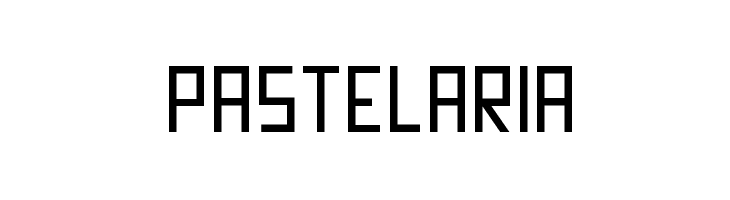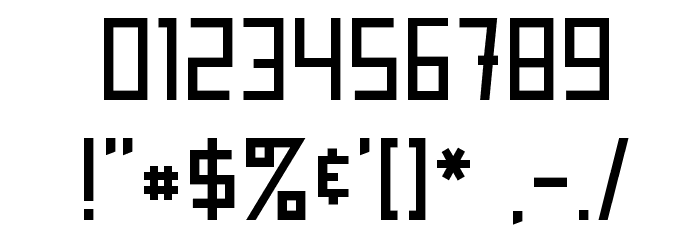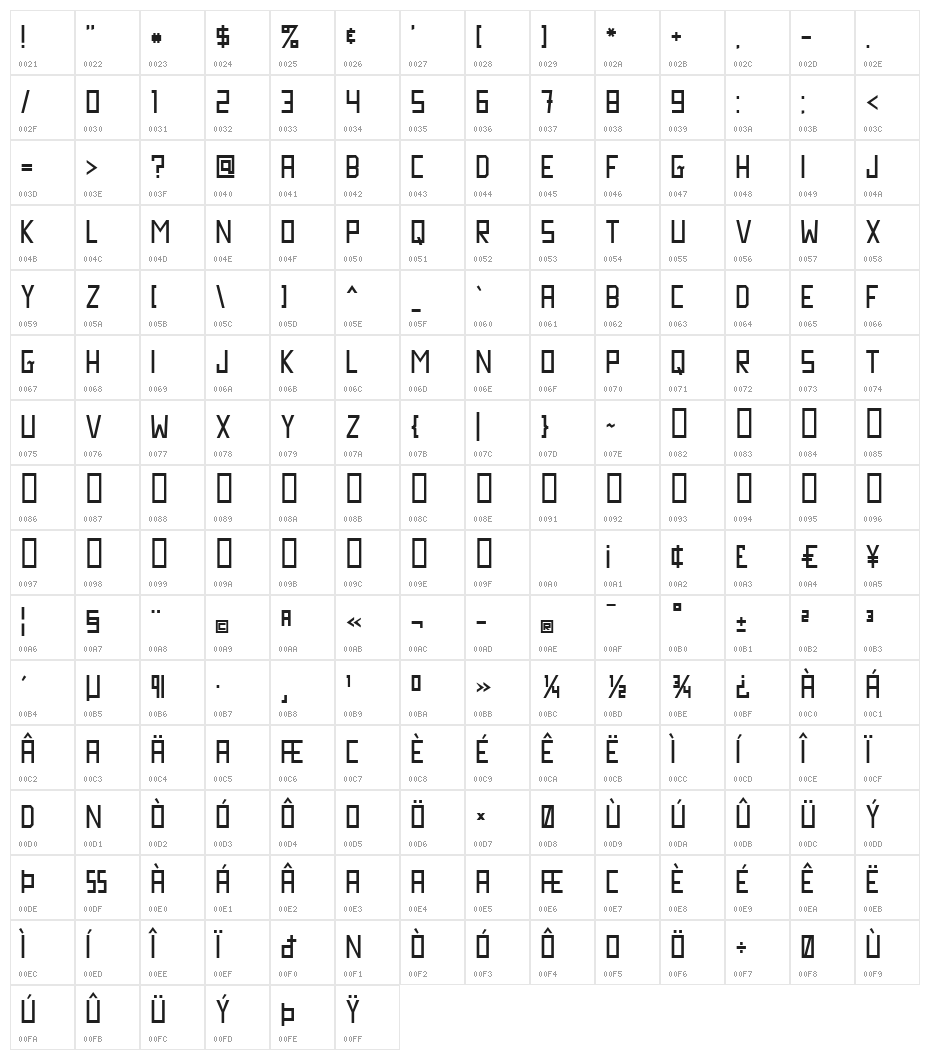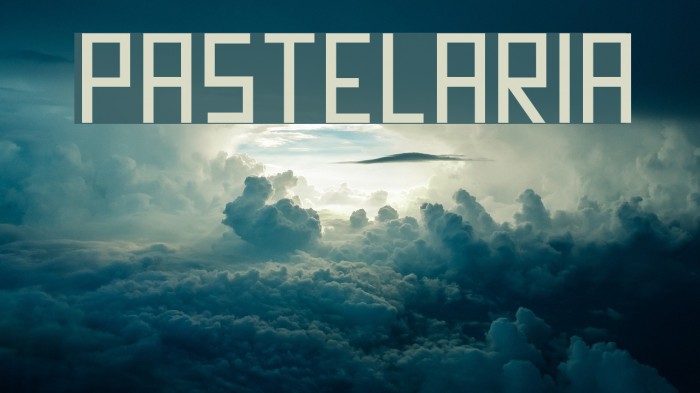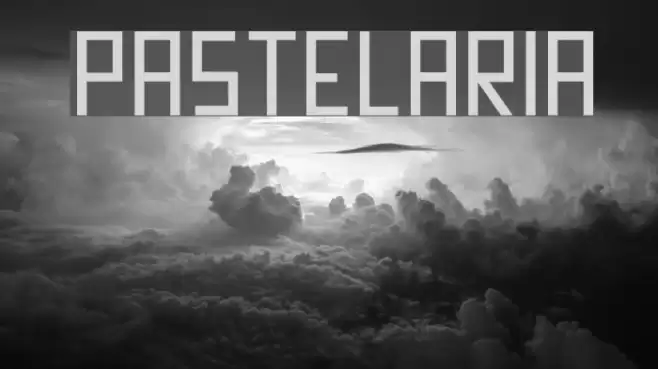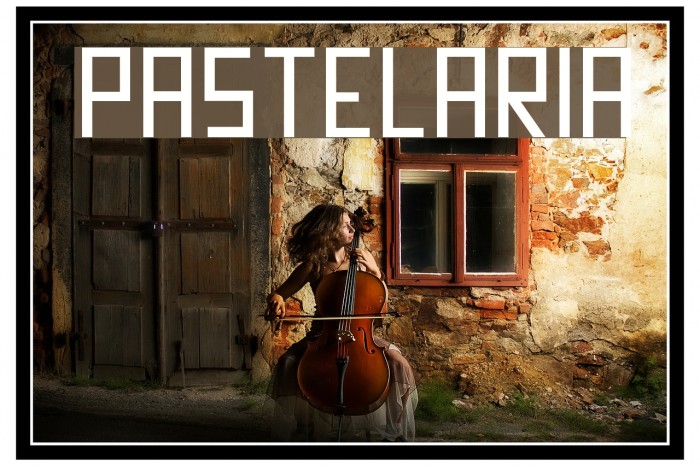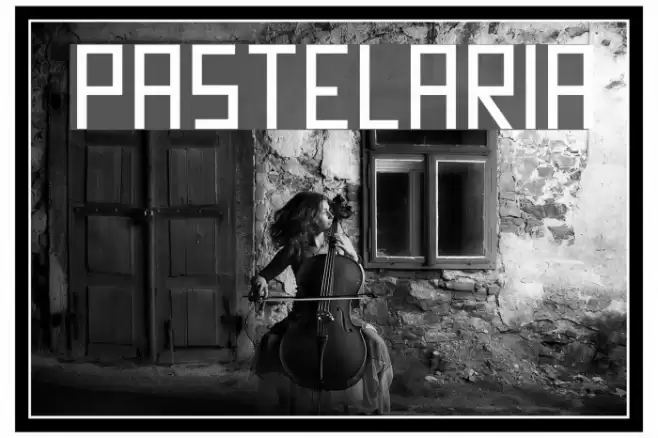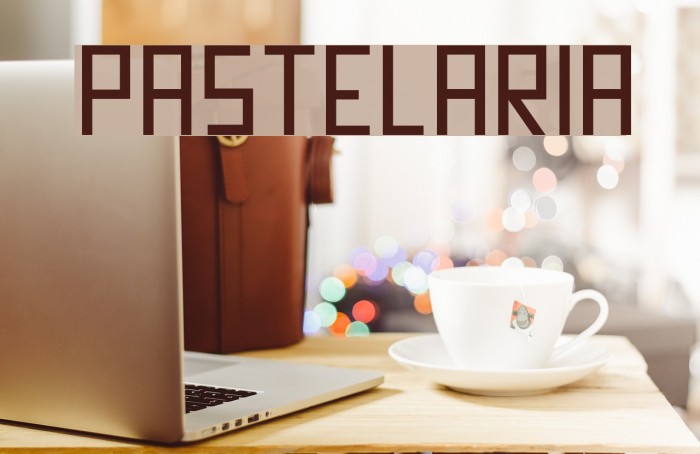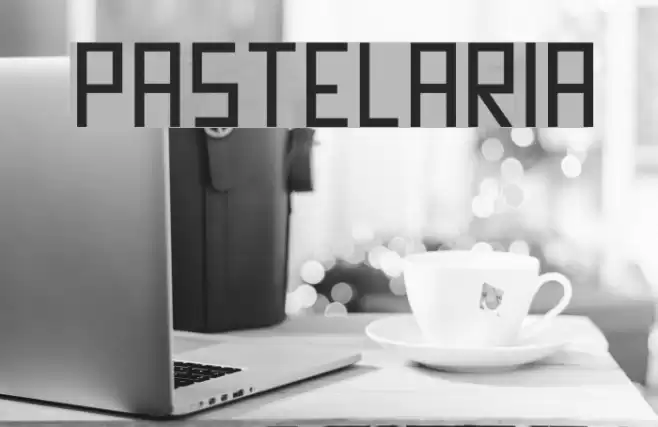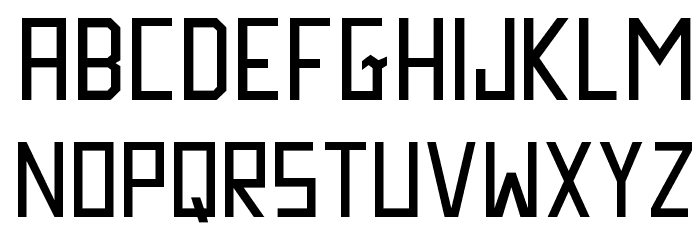
Pastelaria Font
Pastelaria Description
This font features a geometric and angular design, characterized by its sharp edges and straight lines. The uppercase and lowercase letters maintain a consistent height, creating a uniform appearance. The numerals and special characters follow the same angular style, ensuring cohesion across all glyphs. The font's structure is bold and impactful, making it suitable for attention-grabbing designs. Its modern and minimalist aesthetic is enhanced by the absence of curves, giving it a futuristic feel. The font's unique style is evident in the way certain characters, like the 'G' and 'Q', incorporate unexpected angles, adding a distinctive touch.
| Proposed Projects | Ideal for branding, posters, and digital interfaces where a modern and bold statement is needed. |